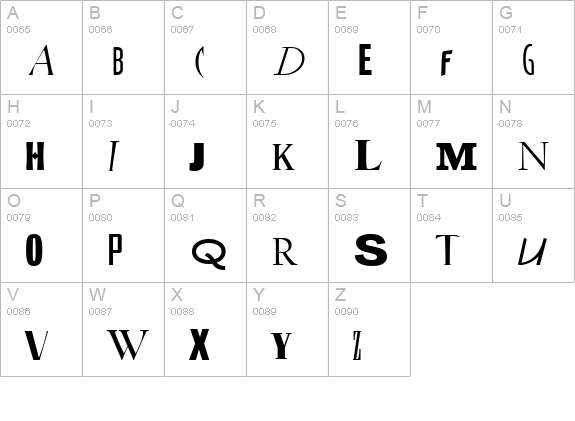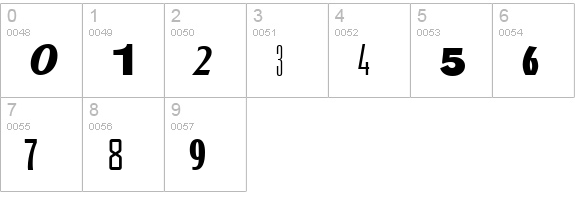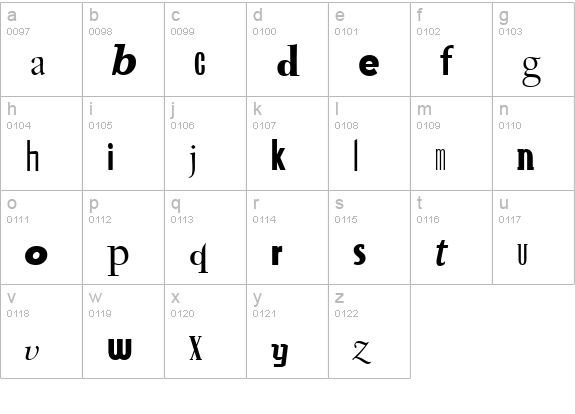
Ransom Bold Italic is a strong, high-contrast, italic variant in the Ransom typeface family \xE2\x80\x94 well suited to headlines, attention-grabbing titles, and strong calls-to-action.
Introducing Ransom Bold Italic, a captivating and modern font that effortlessly combines elegance with a bold statement. Designed for those who seek to make a lasting impression, Ransom Bold Italic exudes confidence and sophistication in every character. With its sleek and stylish curves, Ransom Bold Italic is the perfect choice for projects that demand attention. Whether it's a striking headline, a powerful logo, or a stylish branding element, this font will elevate your design to new heights. What sets Ransom Bold Italic apart is its versatility. It seamlessly transitions from formal to casual, making it suitable for a wide range of applications. From luxurious fashion editorials to edgy music album covers, this font adapts to your creative vision effortlessly. But what makes Ransom Bold Italic truly exceptional is that it is freely available to download at FontsMarket.com. Yes, you read that right. You can enhance your designs with this extraordinary font without breaking the bank. FontsMarket.com offers a vast collection of high-quality fonts, and Ransom Bold Italic stands out as one of the gems in their treasure trove. So, why wait? Embrace the power of Ransom Bold Italic and unlock a world of artistic possibilities. Download it now from FontsMarket.com and let your creativity soar to new heights. Whether you're a seasoned designer or an aspiring artist, Ransom Bold Italic is the perfect companion on your creative journey.